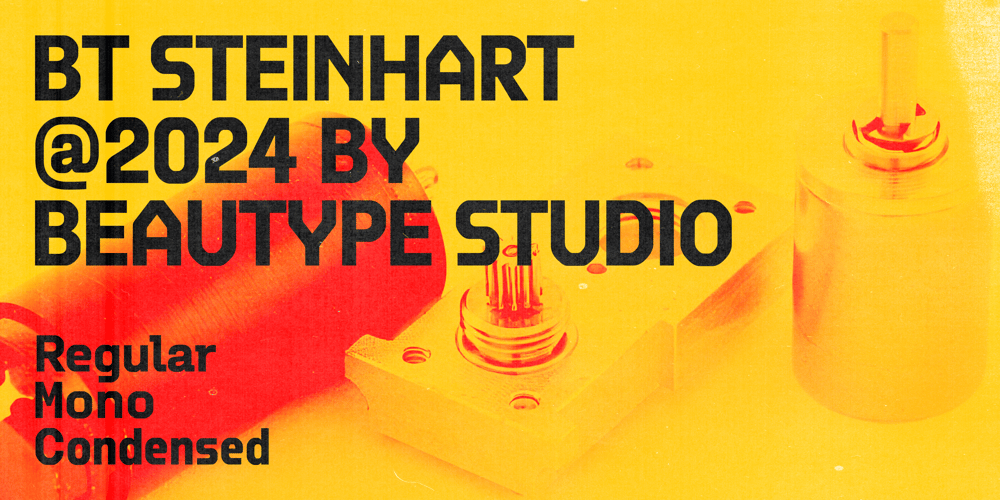
BT Steinhart
BT Steinhart font
BT Steinhart Font Family was designed by published by BeauType. BT Steinhart contains 12 styles and family package options. BT Steinhart is a versatile typeface that captures the essence of industrial design. Its bold, angular forms and mechanical aesthetic evoke feelings of strength, reliability, and precision. Whether used for headlines, body copy, or branding, this typeface adds a touch of rugged sophistication to any project..